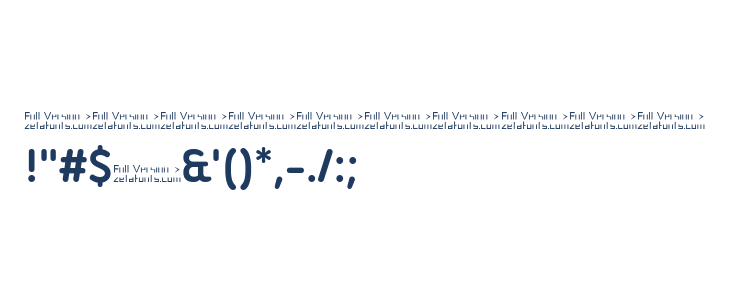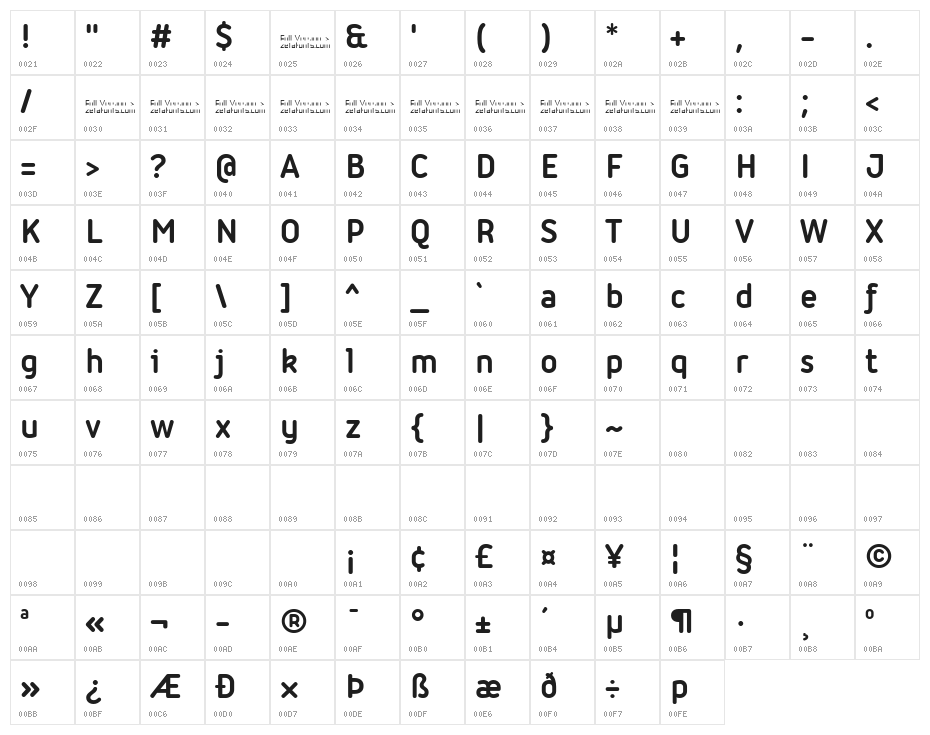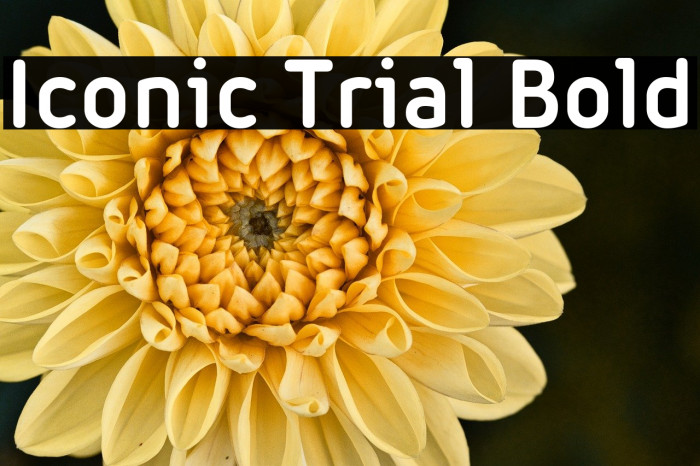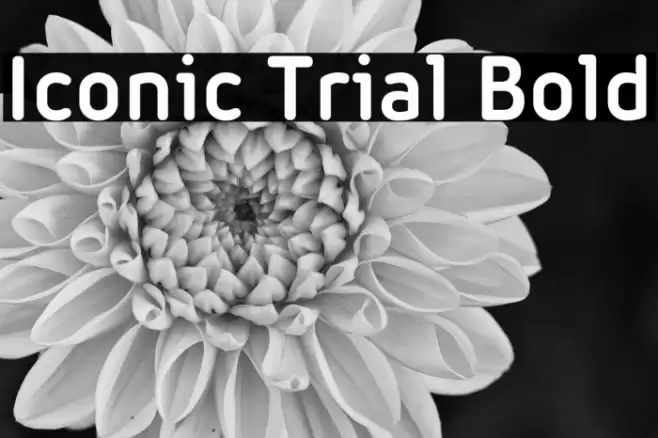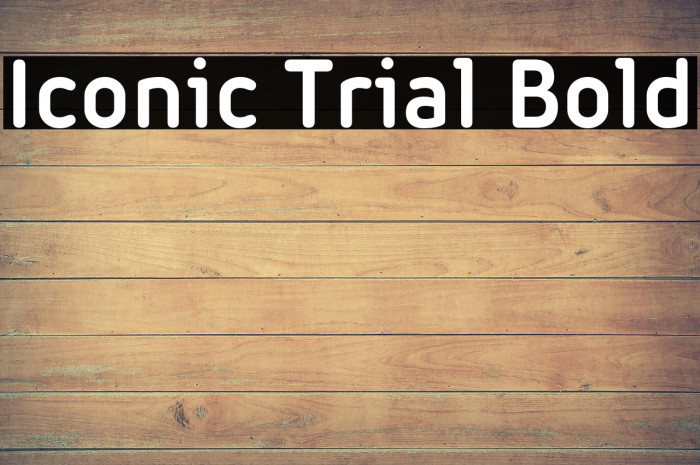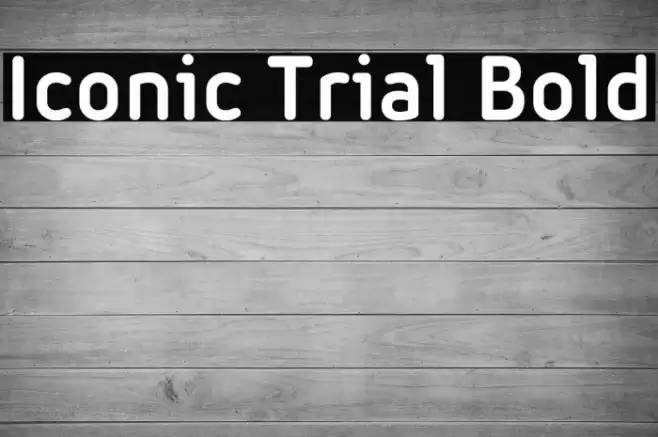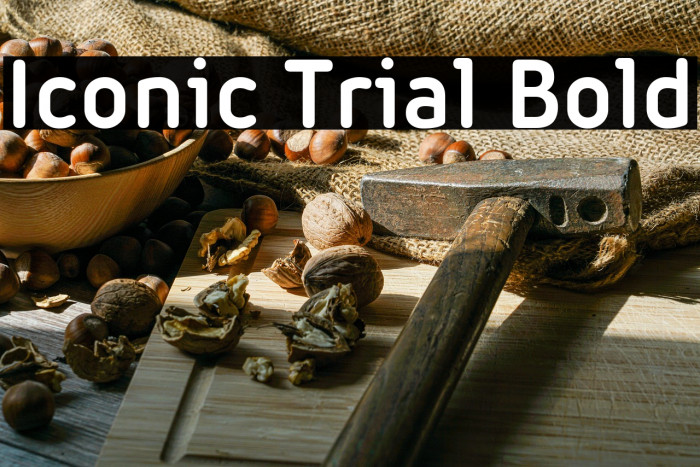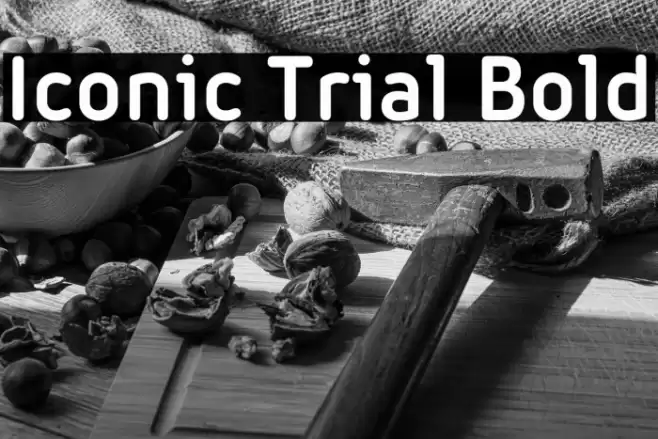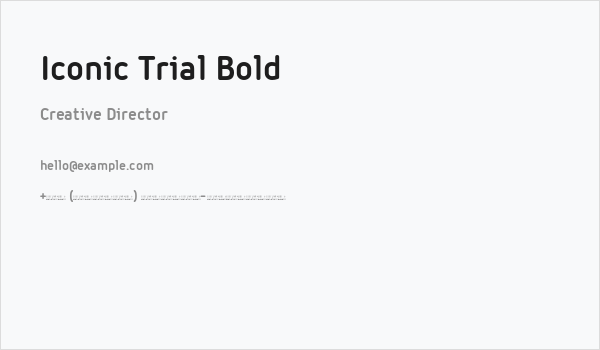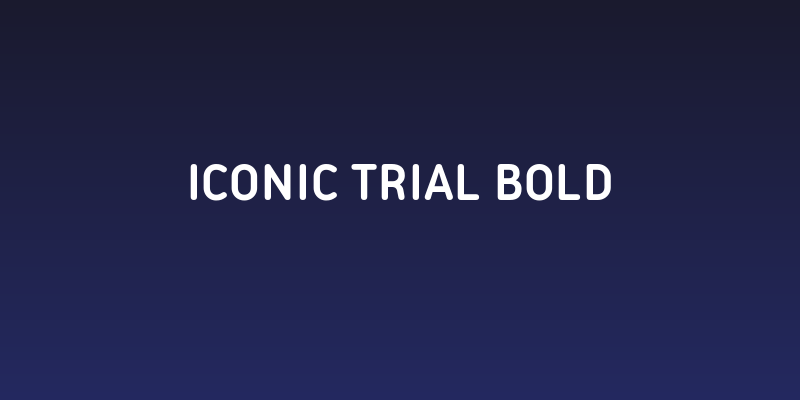
Iconic Trial Bold Font
Iconic Trial Bold Description
This font features a bold and rounded sans-serif style, characterized by its smooth curves and uniform stroke width. The uppercase and lowercase letters maintain a consistent height, creating a harmonious and balanced appearance. The numerals and special characters are designed with the same rounded aesthetic, ensuring a cohesive look across all elements. The font's simplicity and clarity make it highly legible, suitable for various applications where readability is key. Its modern design is both approachable and professional, making it versatile for different design needs.
Use CaseHeadlines, Logos, Digital Interfaces
Proposed ProjectsIdeal for branding, signage, packaging, and digital interfaces where a modern and friendly appearance is desired.